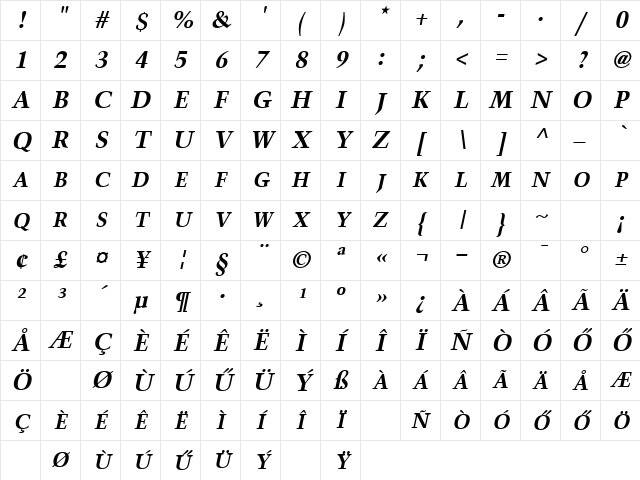
Complete Hu_ToureExpert BoldOblique Regular glyph index. Displaying only characters natively supported by Hu_ToureExpert BoldOblique Regular font.
Hu_ToureExpert BoldOblique is a composed and adaptable typeface that performs quietly and consistently across a wide range of design contexts. The slanted form adds forward momentum and visual energy. Its bold stroke weight gives it real presence on the page.
Pro Tip: Use Hu_ToureExpert BoldOblique for emphasis, pull quotes, and subheadings where its slanted energy can add rhythm to the layout.